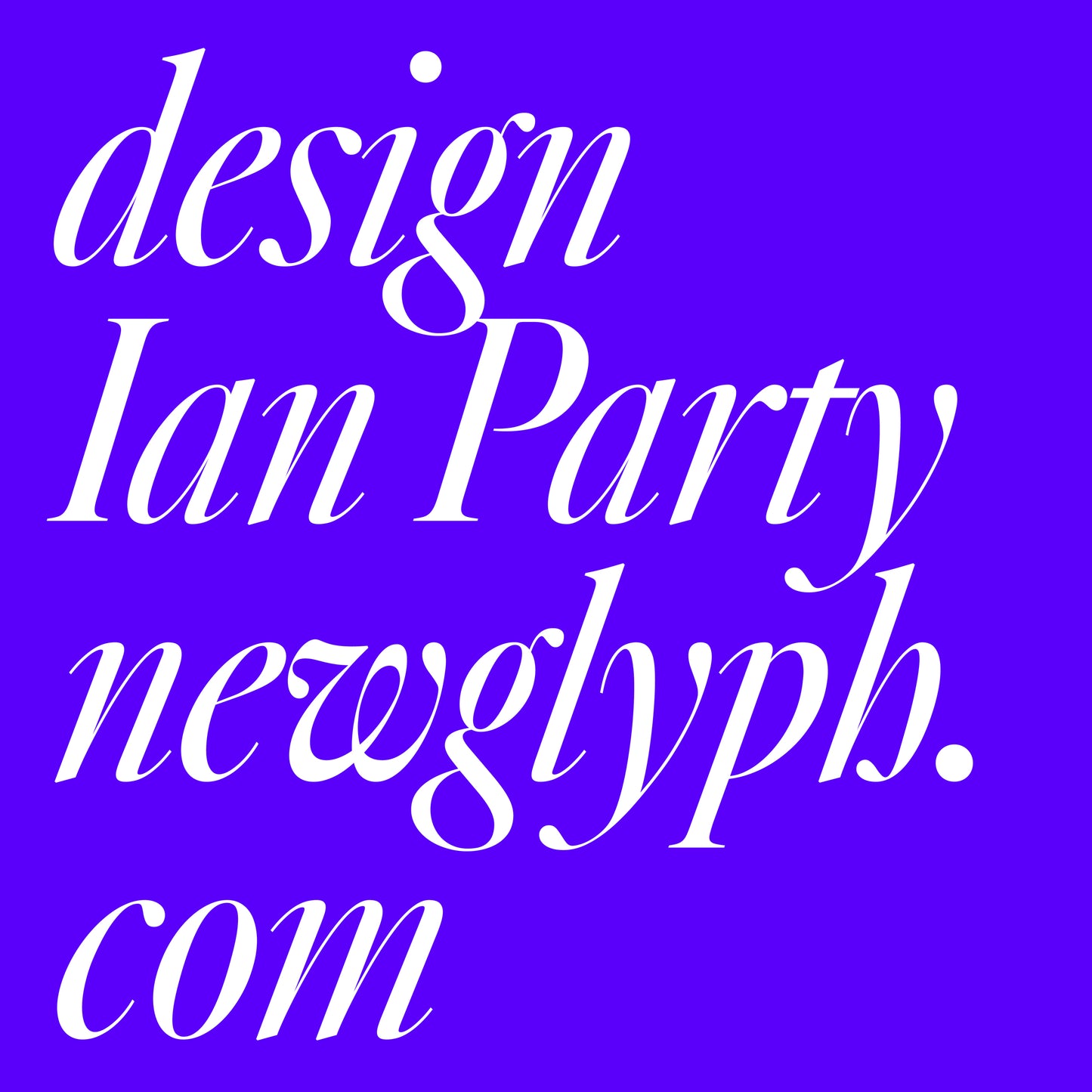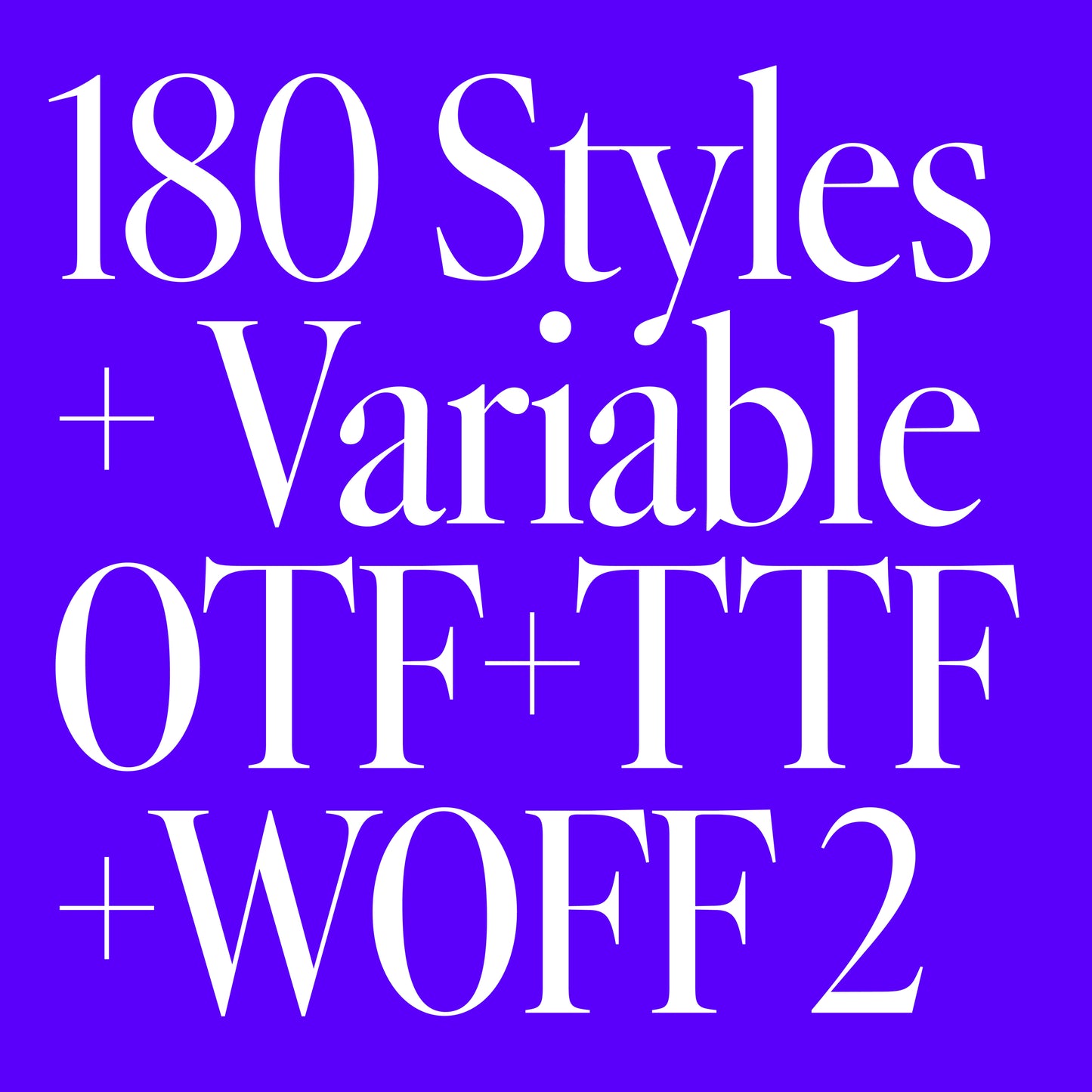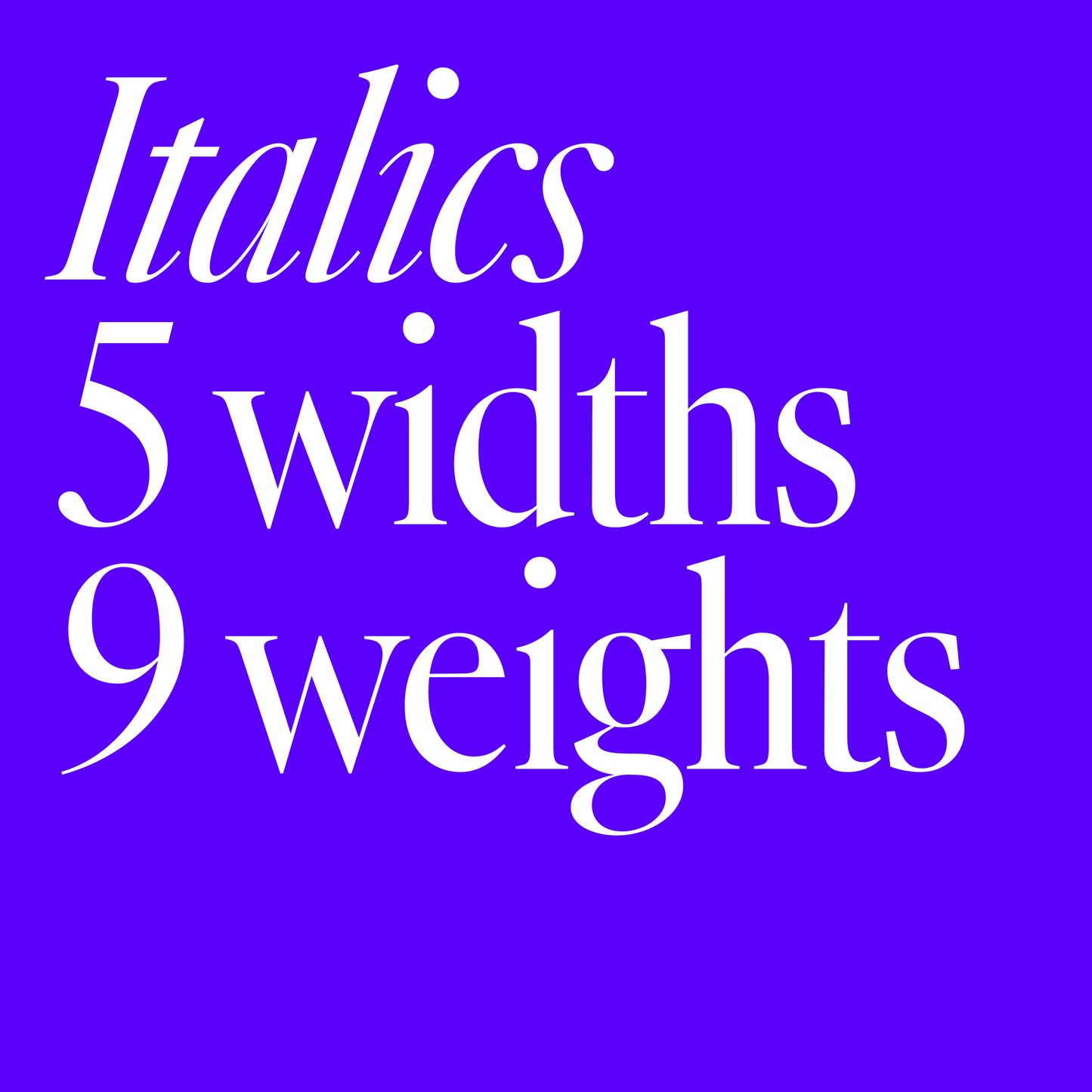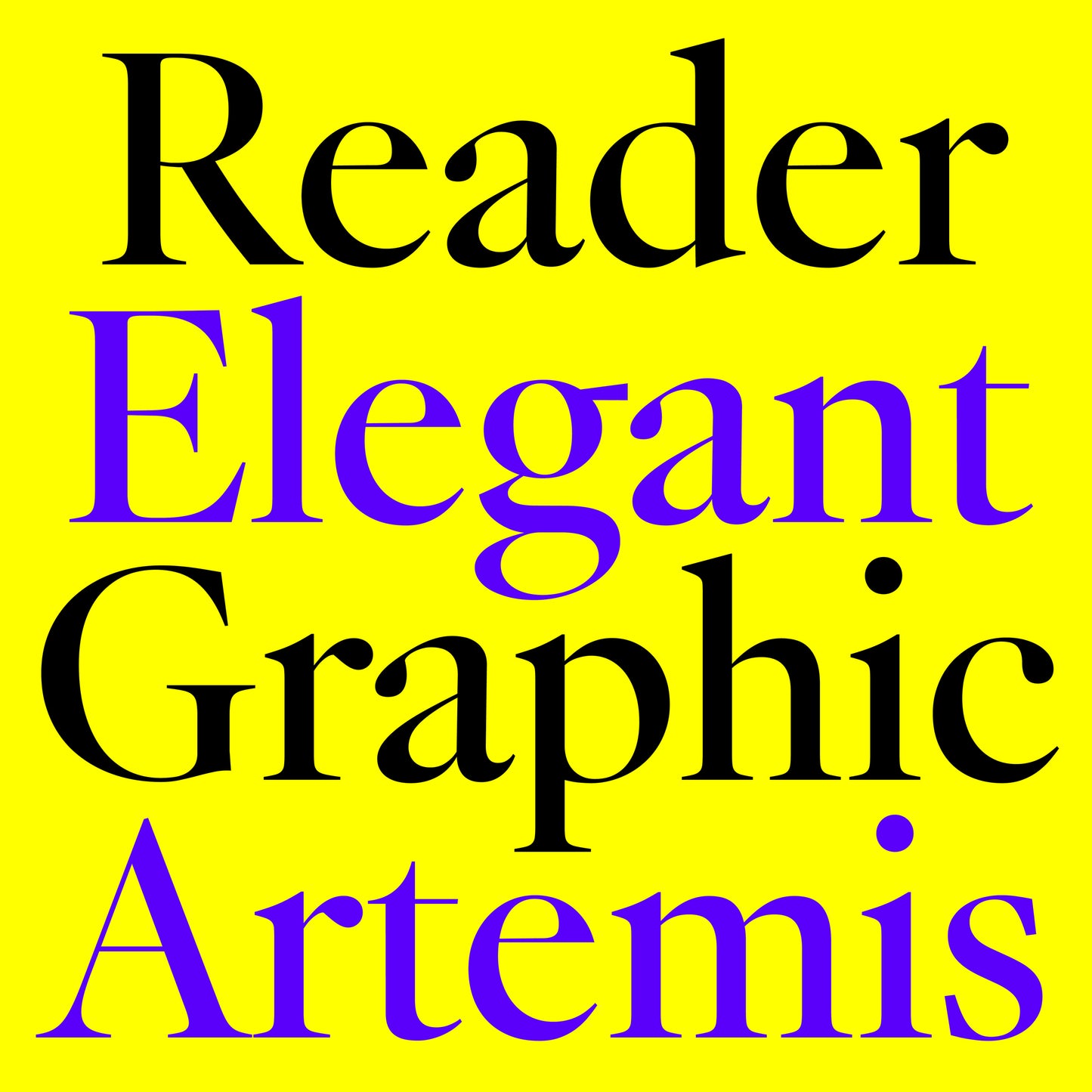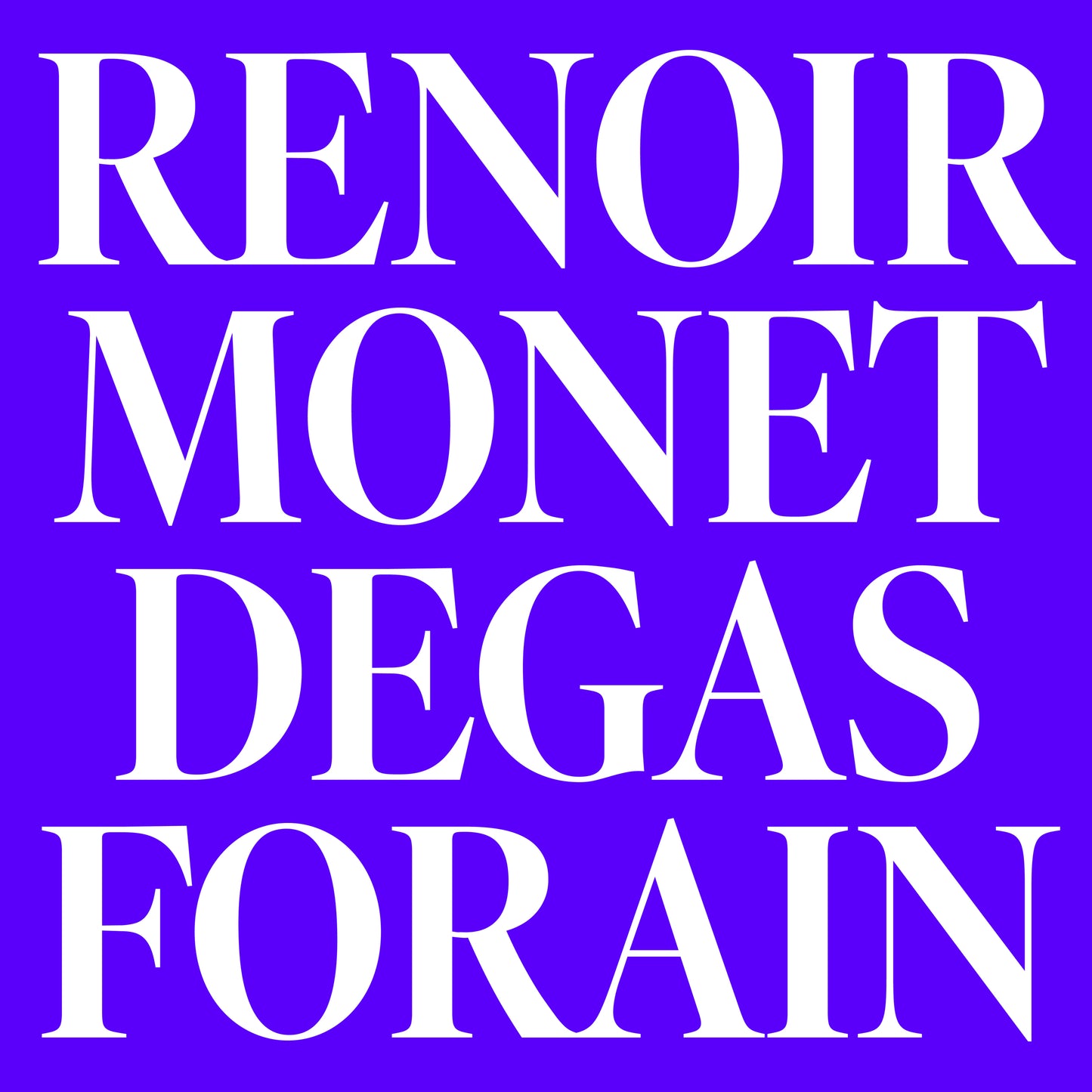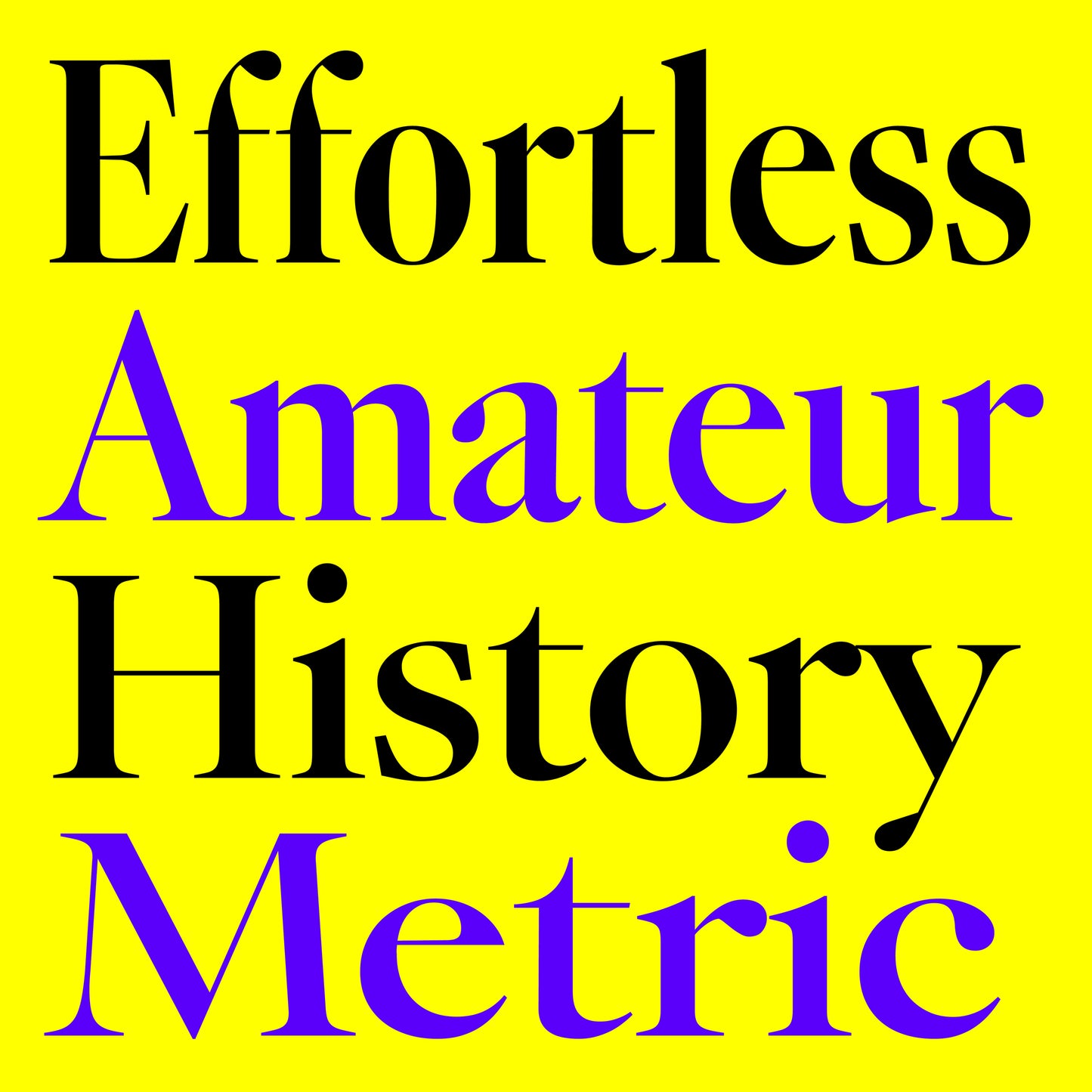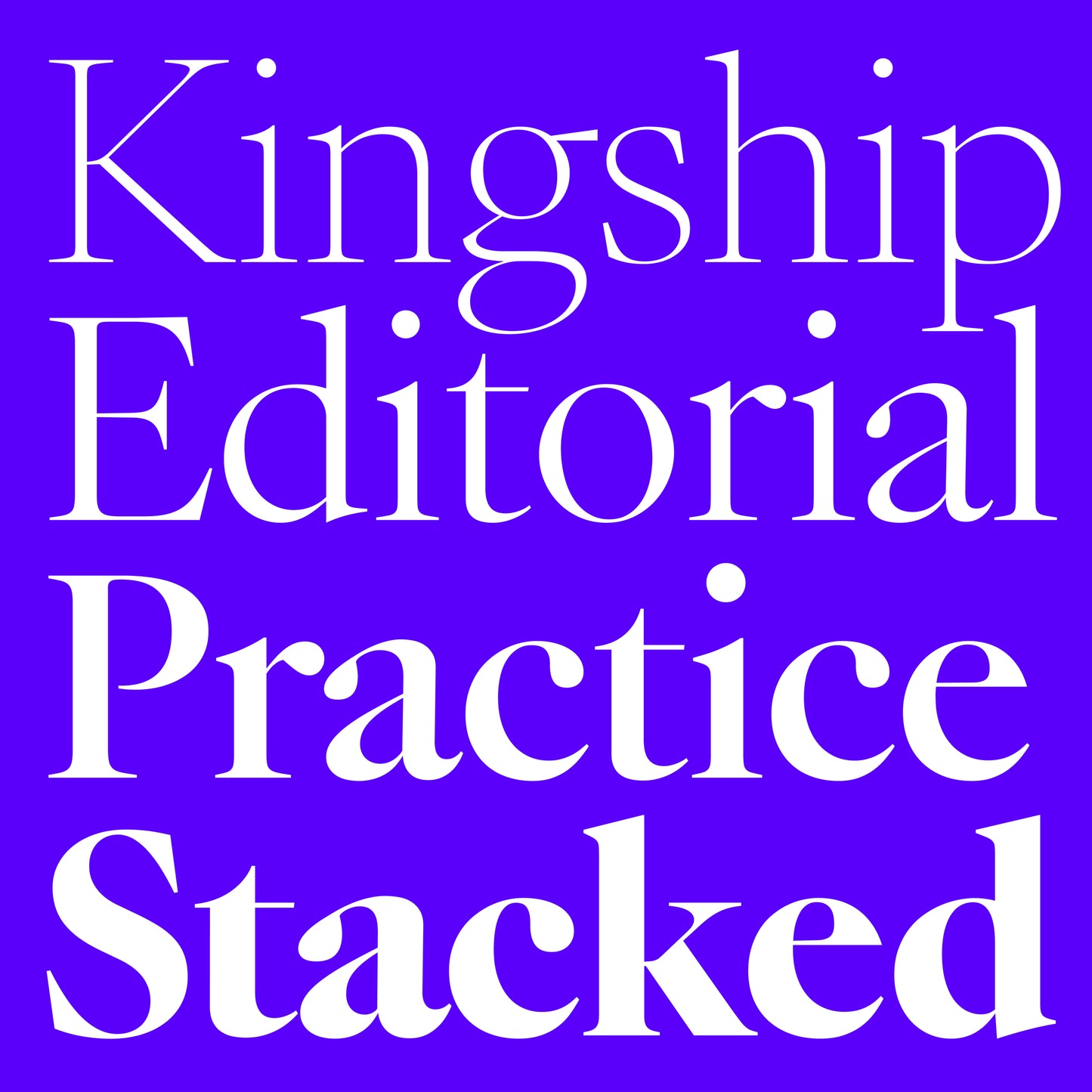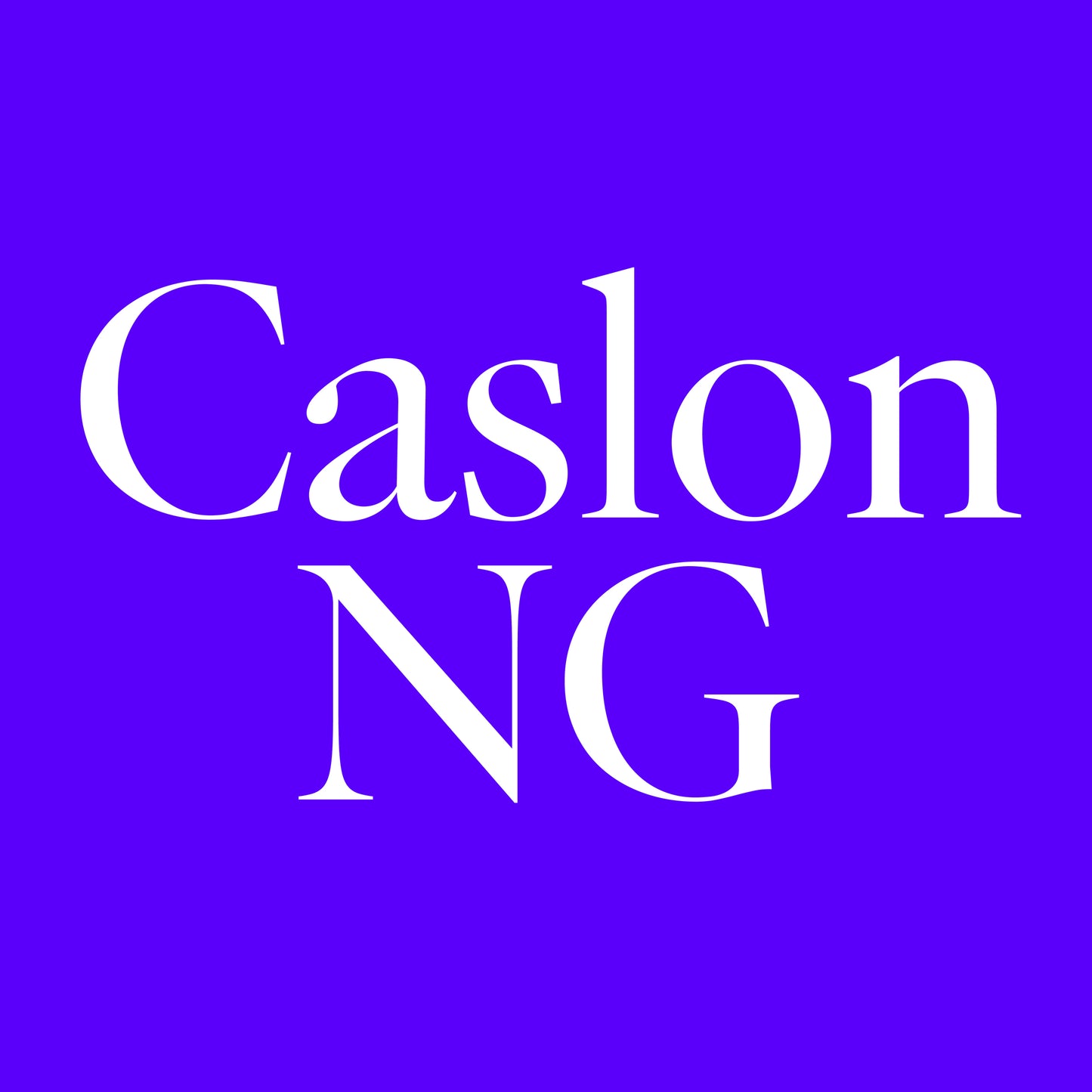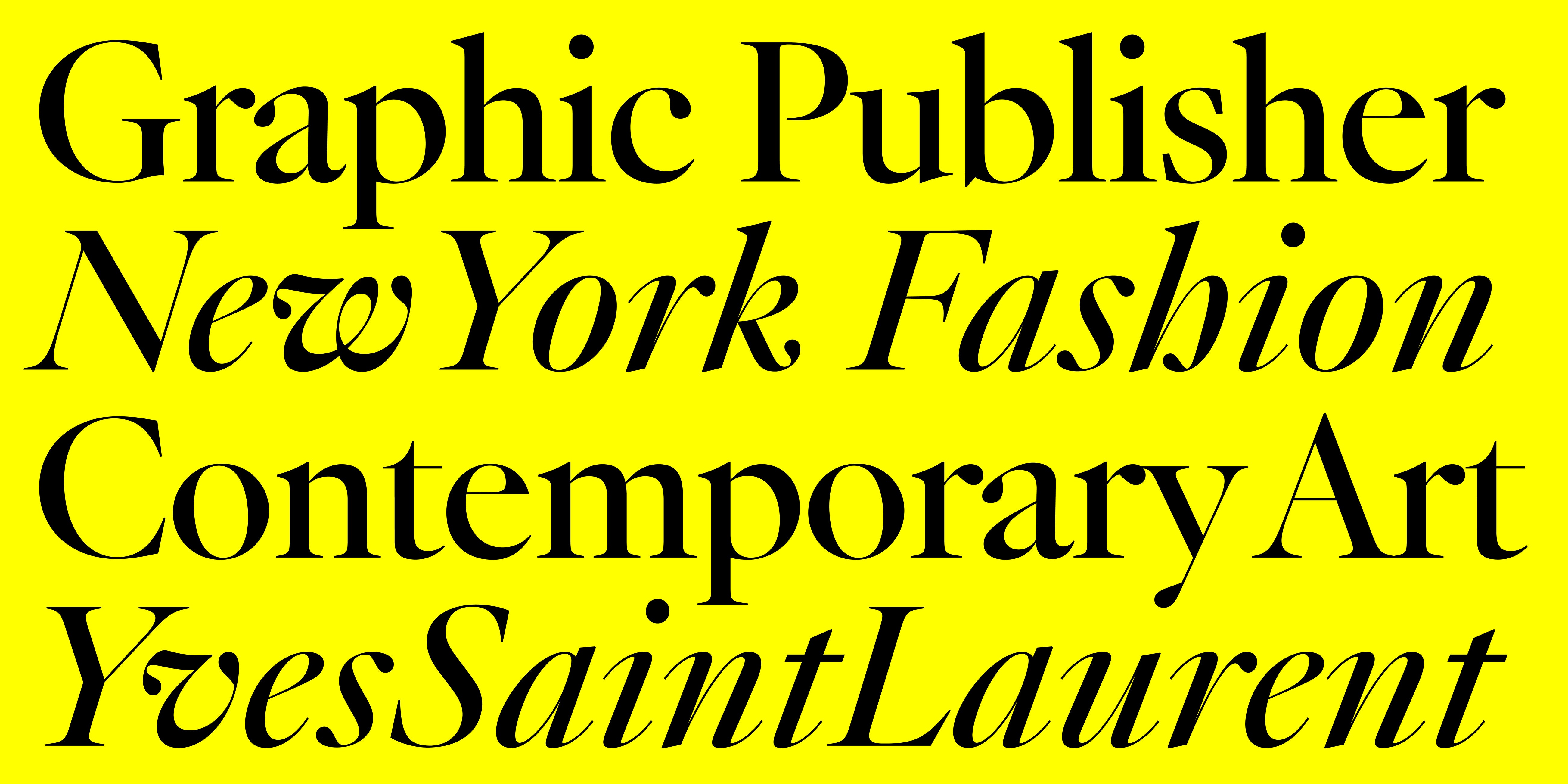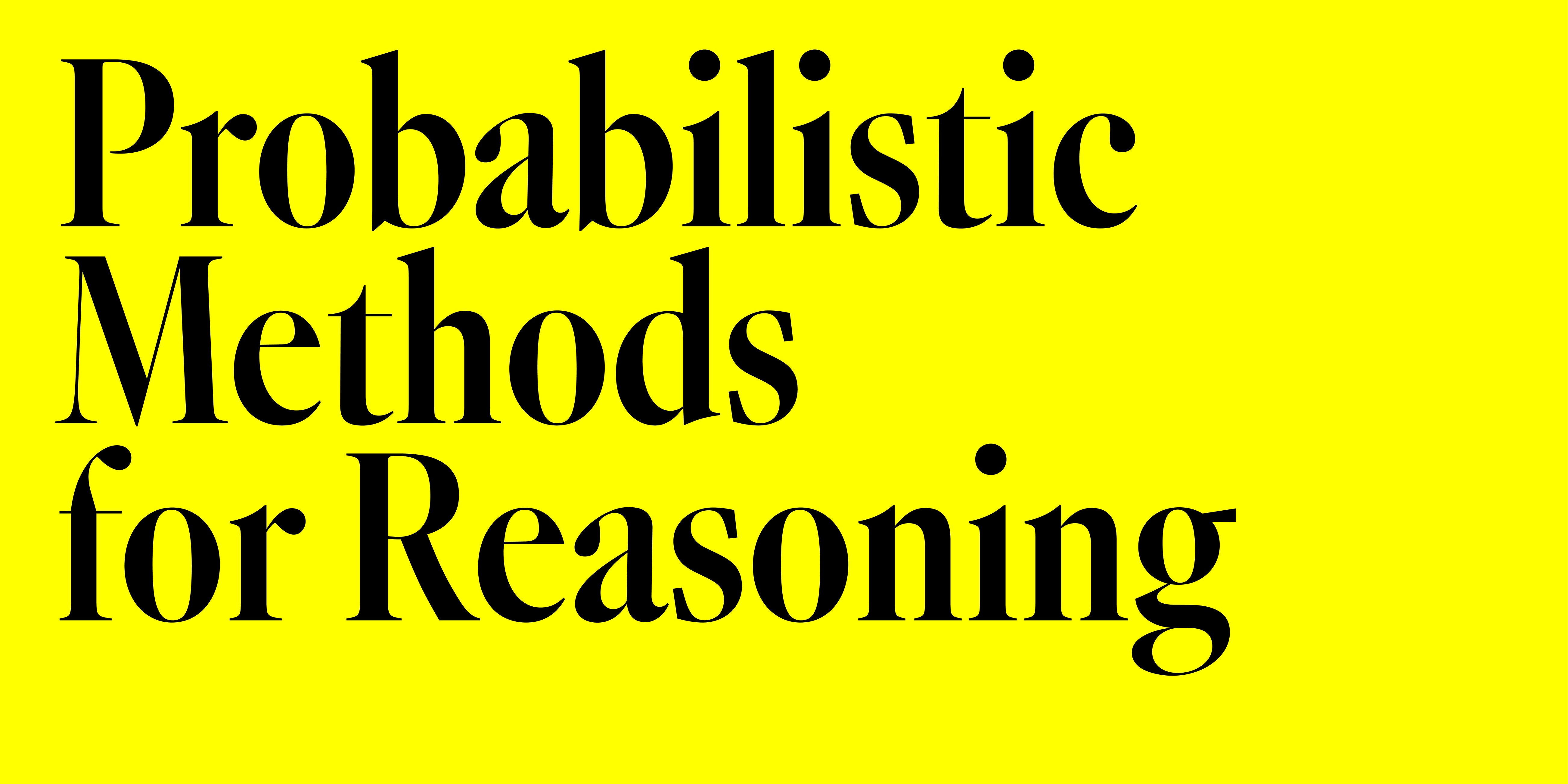
Caslon NG
Caslon NG, designed by Ian Party, is a variable typeface that reinterprets the timeless elegance of the Garalde style for contemporary design. Inspired by the legacy of 16th-century French punchcutter Claude Garamond and the refined craftsmanship of later Garalde masters, this typeface bridges history and innovation, offering fluid adaptability across digital and print media.
Much like its historical predecessors, Caslon NG balances soft organic curves with sharp precision, creating a striking harmony between tradition and modernity. The bracketed serifs, elegant contrast between thick and thin strokes, and generous, rounded apertures give it a warm yet sophisticated character—perfect for editorial layouts, branding, and immersive reading experiences.
As a variable font, Caslon NG offers unprecedented flexibility, allowing designers to fine-tune weight, width, and optical adjustments to create highly customized typography. With 180 styles included, this expansive type family provides a dynamic range, adapting seamlessly from delicate, book-friendly weights to bold, statement-making headlines.
Designed for a new generation of creatives, Caslon NG is more than just a revival—it’s a modern design tool that pushes the boundaries of classic typography.
— ITALICS
— REGULAR, CONDENSED, EXTENDED STYLES